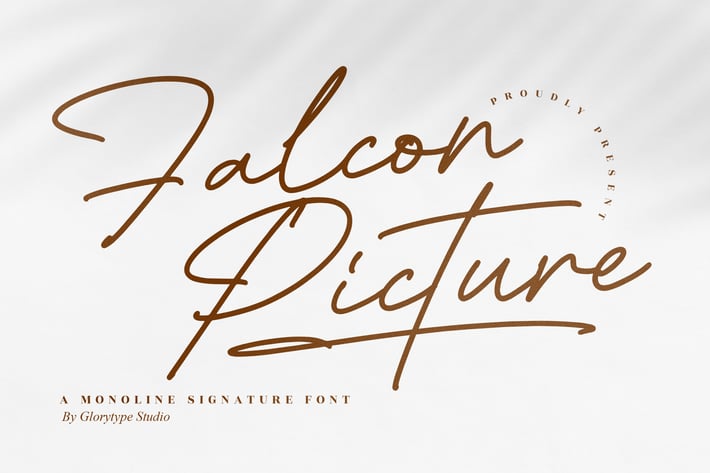
Falcon Picture Monoline Signature Font
Falcon Picture is a refined monoline signature font that blends sophistication with effortless charm. Its flowing strokes and clean lines evoke the feeling of a handwritten signature — elegant yet modern, making it the perfect choice for projects that aim to express authenticity and class.
Monoline handwritten style with smooth flow
Elegant ligatures and alternates for natural writing feel
Perfect readability for print and digital uses
Branding and personal logos
Fashion and lifestyle magazines
Invitations and stationery
Photography watermarks
Elegant packaging and product design
Website headers and business cards
A timeless handwritten touch — Falcon Picture adds sophistication and sincerity to every signature design.